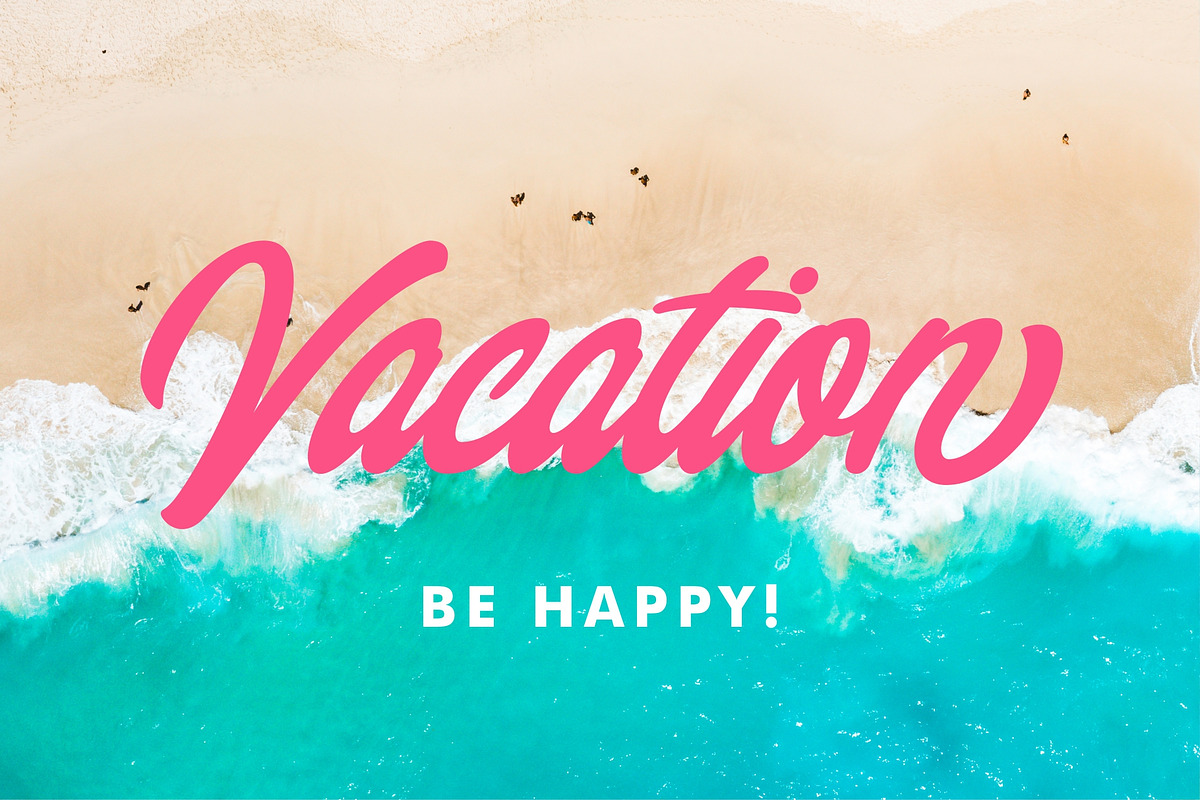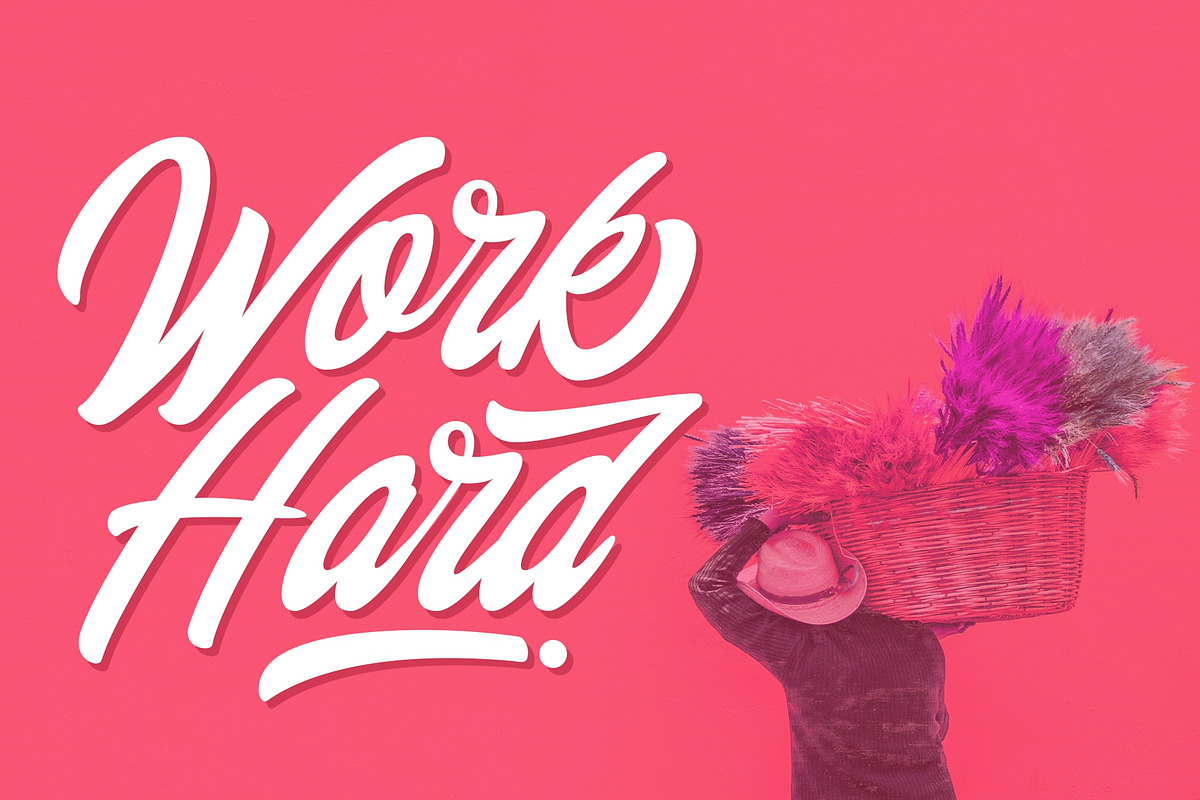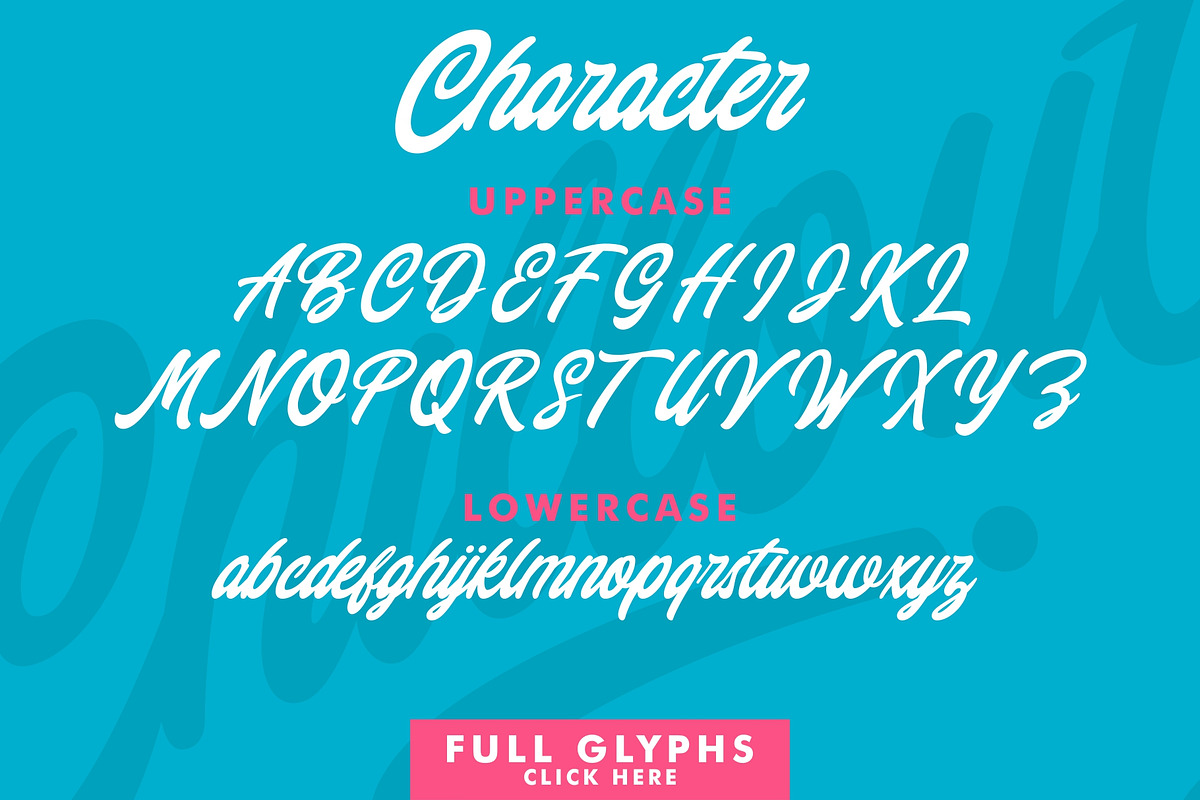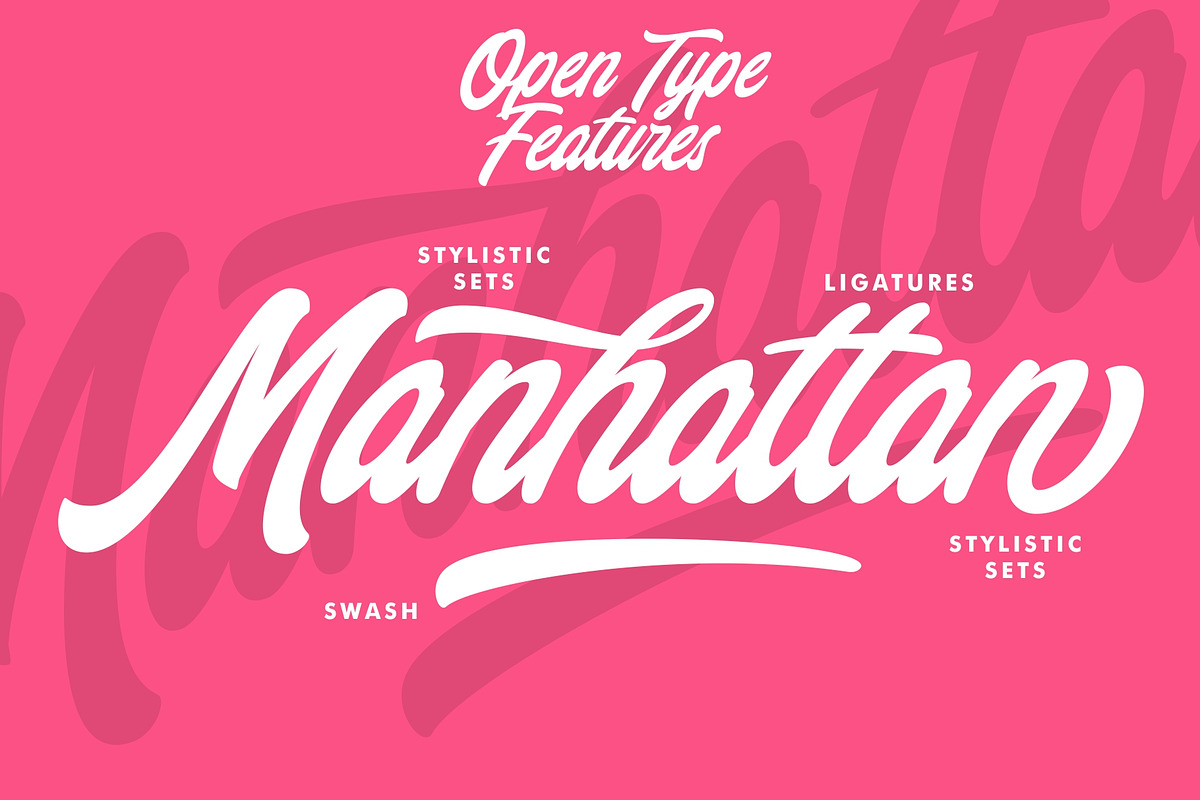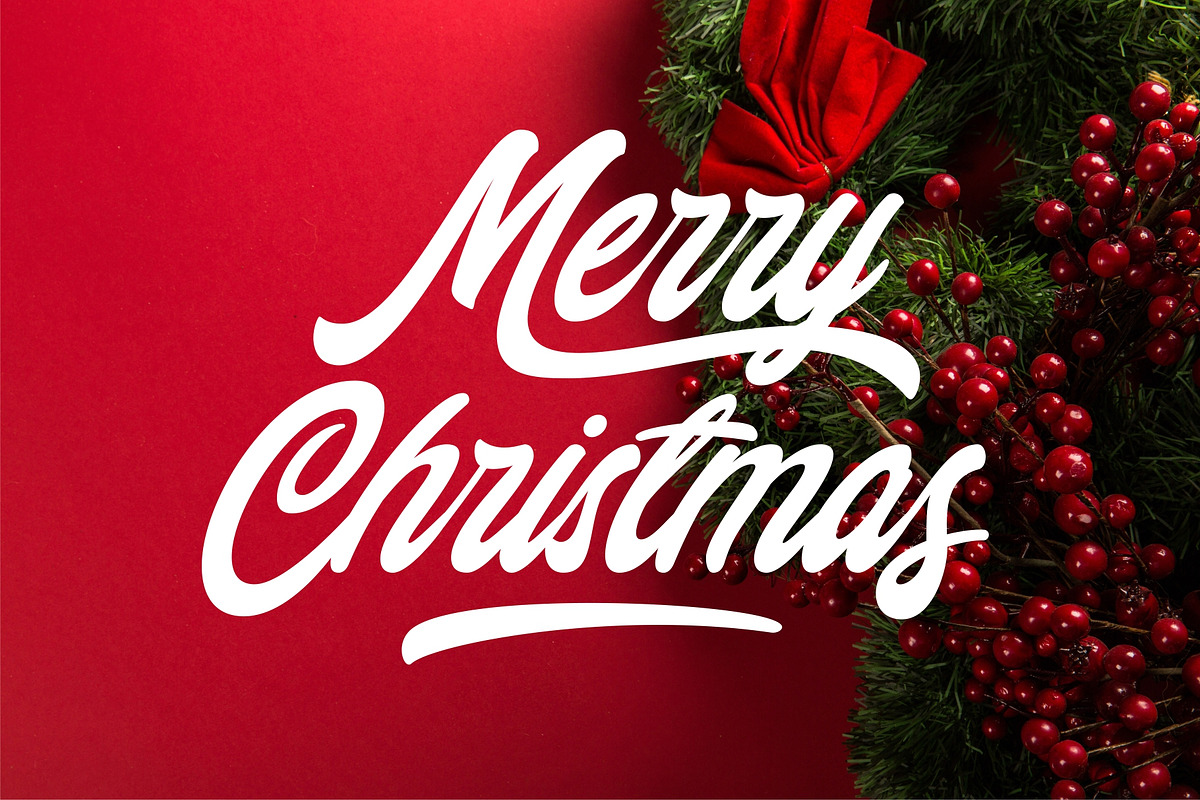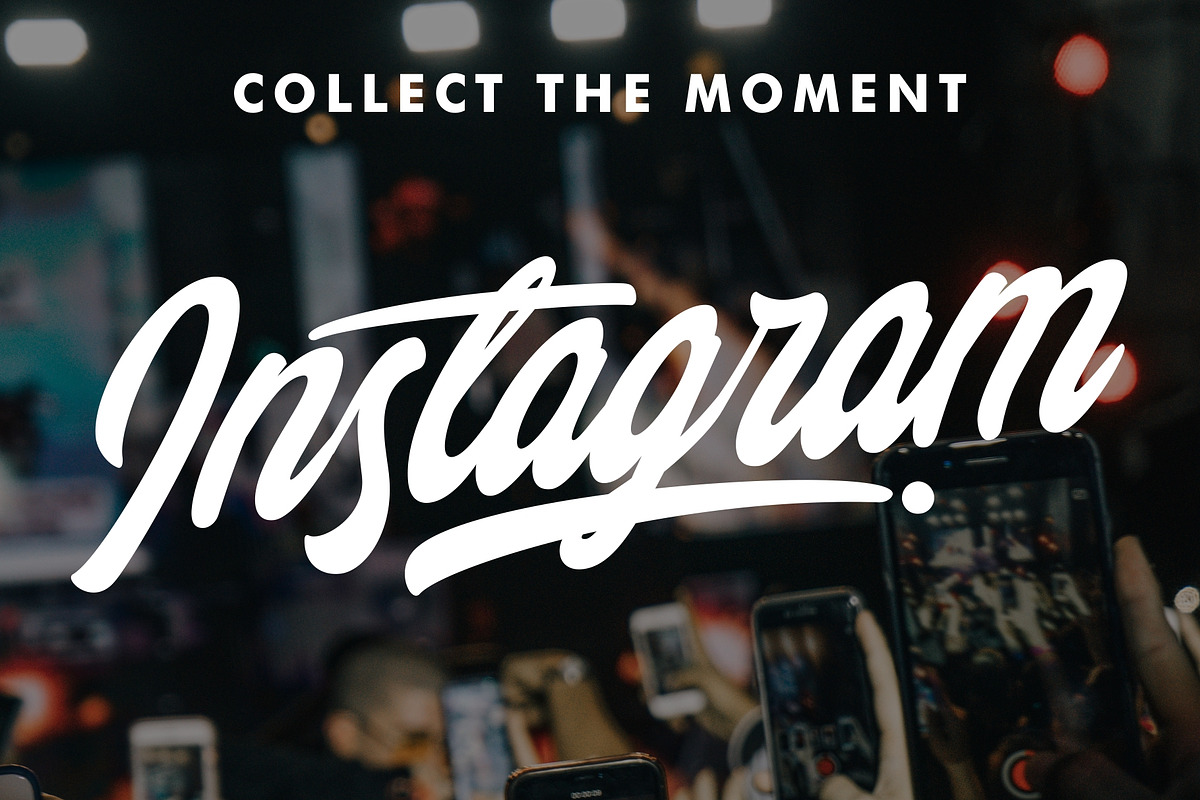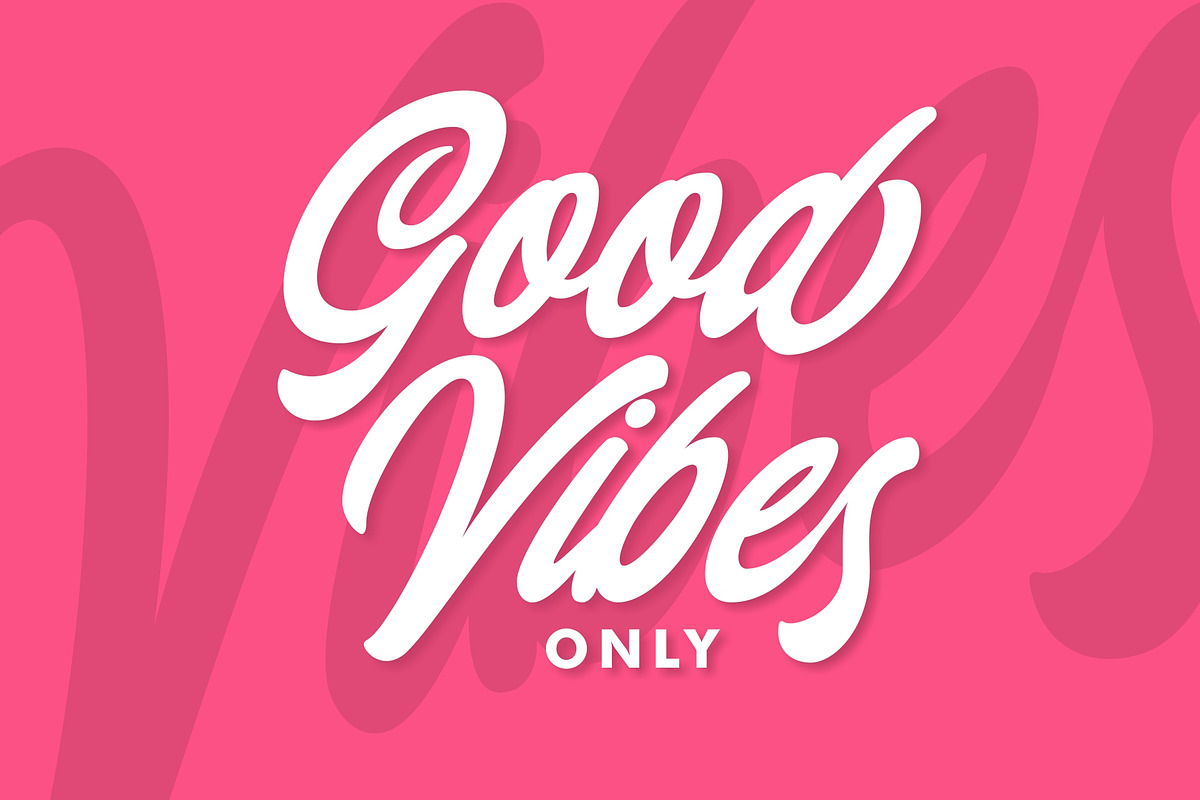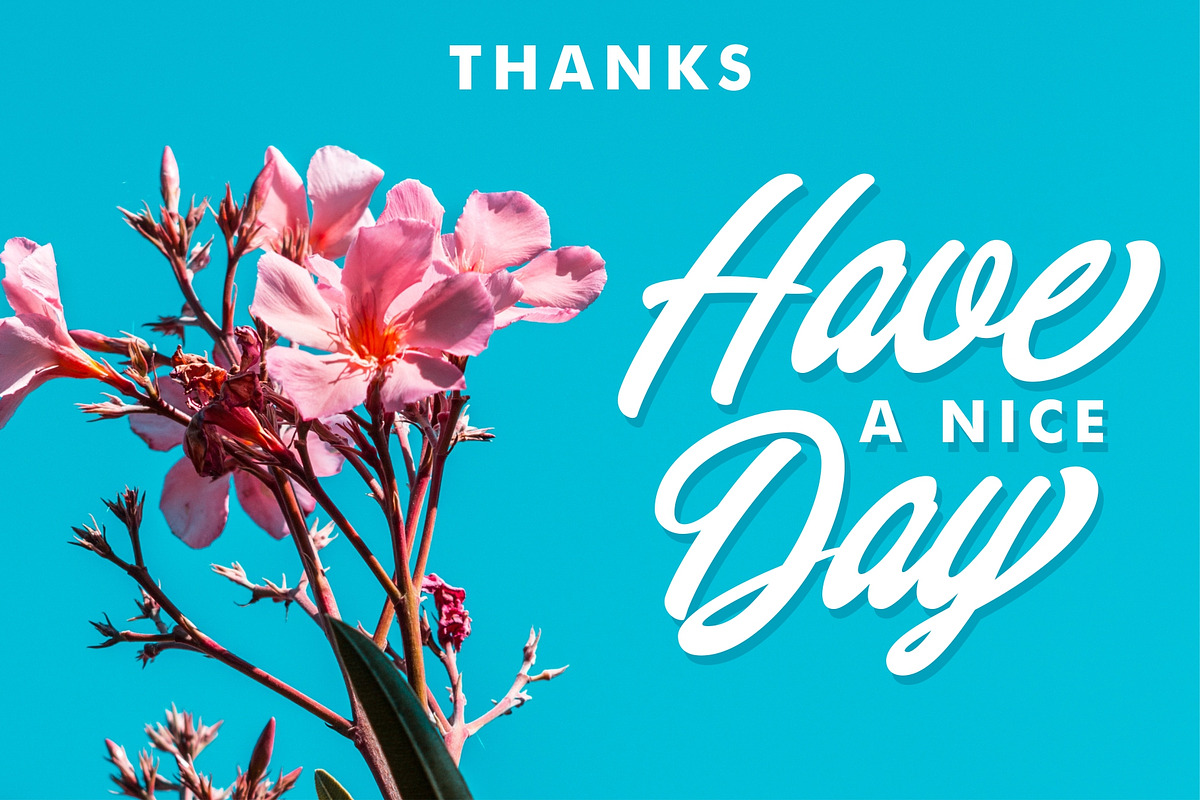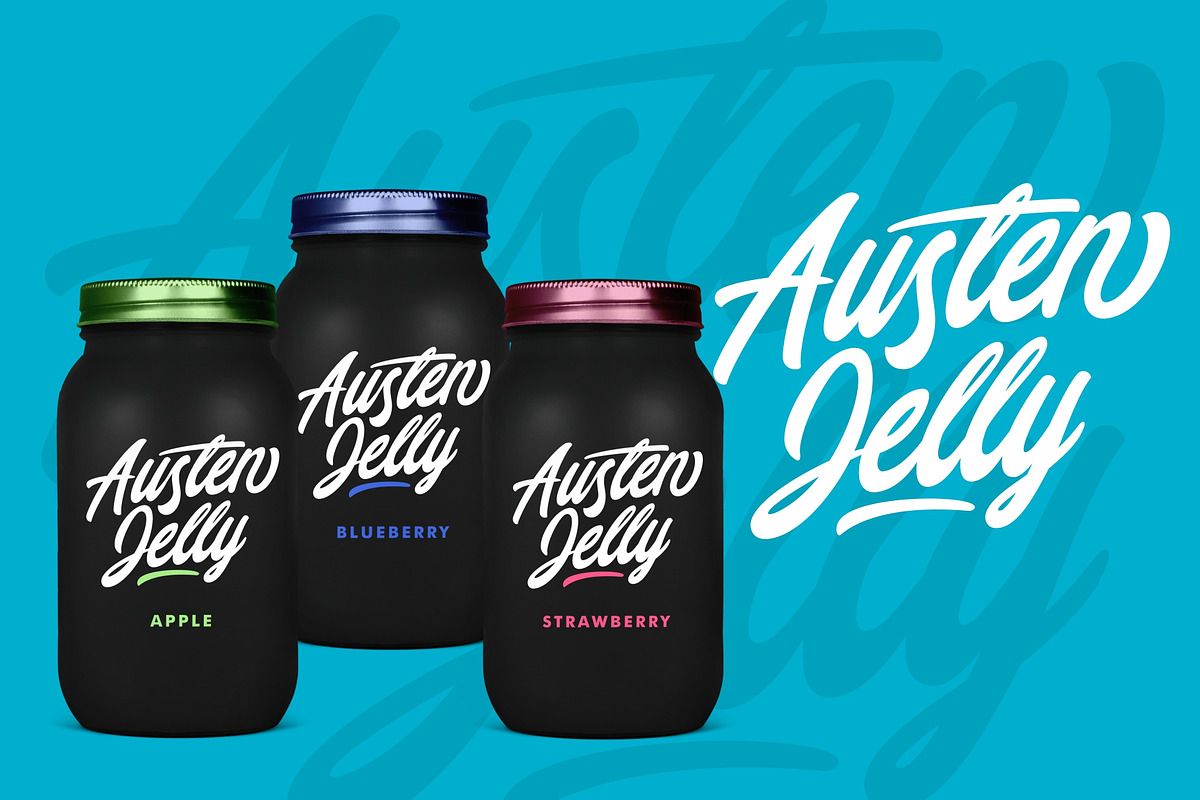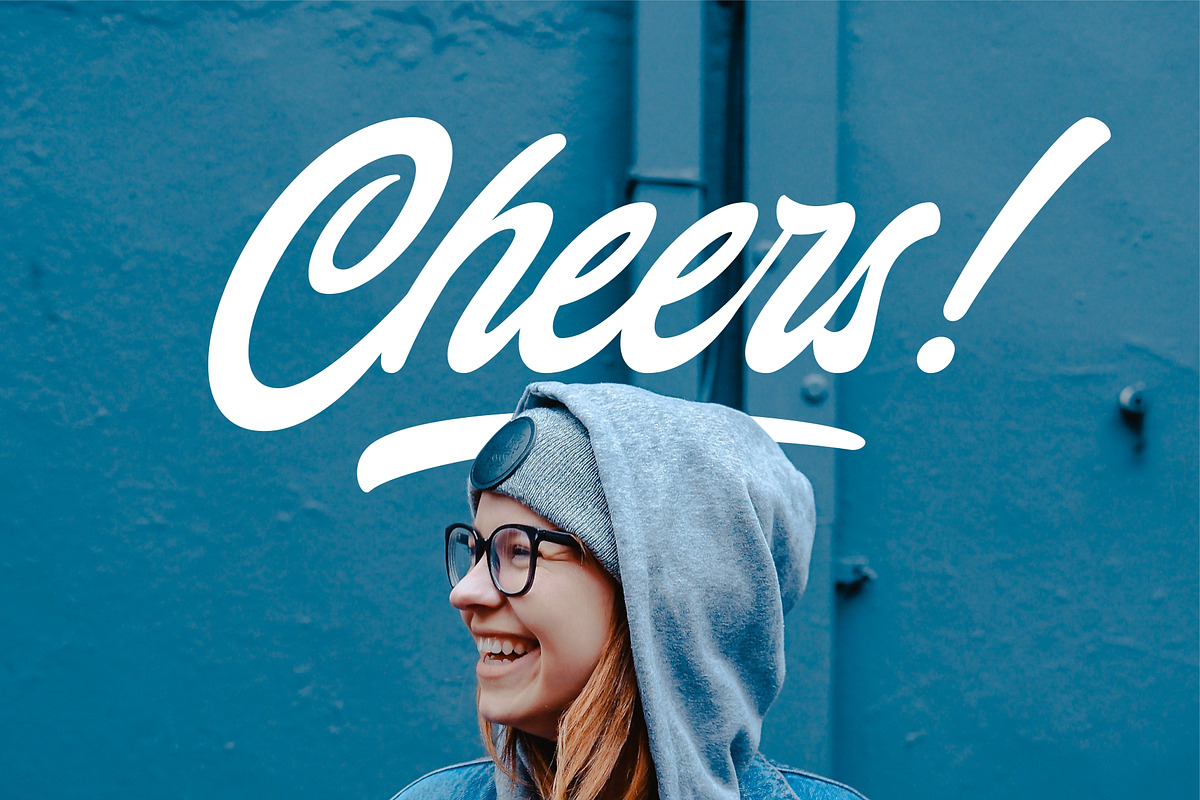
Chillout Typeface
We introduce our new product called Chillout Typeface.
Chillout Typeface is a stylish script font inspired by bold and colorful hand lettering style, so you can bring your design look more beautifull, chill and stylish with this typeface. We give you bonus a swash to make your design look more awesome with Chillout Typeface.
Chillout Typeface also has a standart Multilingual Support.
Chillout Typeface is great for Logotype, Branding Design, Logo Design, Digital Lettering Arts, Instagram Design, T-Shirt/Apparel, Poster, Magazine, Quotes, Signs, Advertising Design, and any Cheerfull and Colorfull design needs.
Chillout Typeface Features :
- Upper and Lowercase Standard Characters, Punctuation, Numerals.
- Opentype Features such as Standard Ligatures, Discretonary Ligatures and Stylistic Set (ss01 - ss09) and swashes.
- Includes a range of multilingual characters.